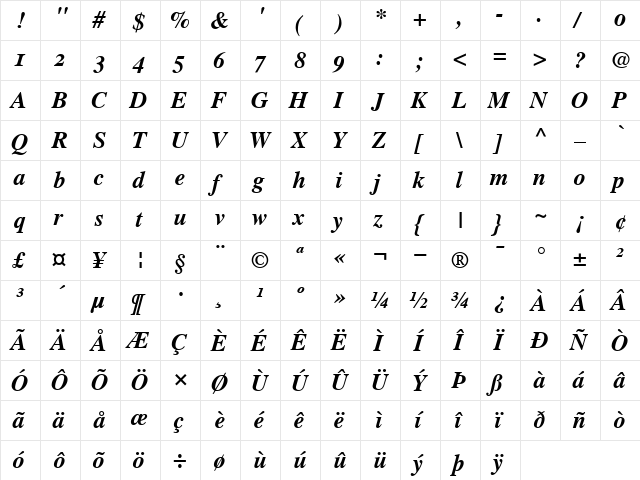
TimesOldStyleFigures BoldItalic Font Preview
Design Context for TimesOldStyleFigures Typeface
TimesOldStyleFigures carries the refined structure of traditional serif typography, with bracketed terminals and considered proportions that communicate credibility and craft. Its italic angle brings a sense of urgency and motion to the letterforms. The heavy weight commands attention and anchors typographic hierarchies.
Pro Tip: Use TimesOldStyleFigures for editorial body copy and considered headline work. Pair with a neutral sans for UI elements or captions to create a classic hierarchy.